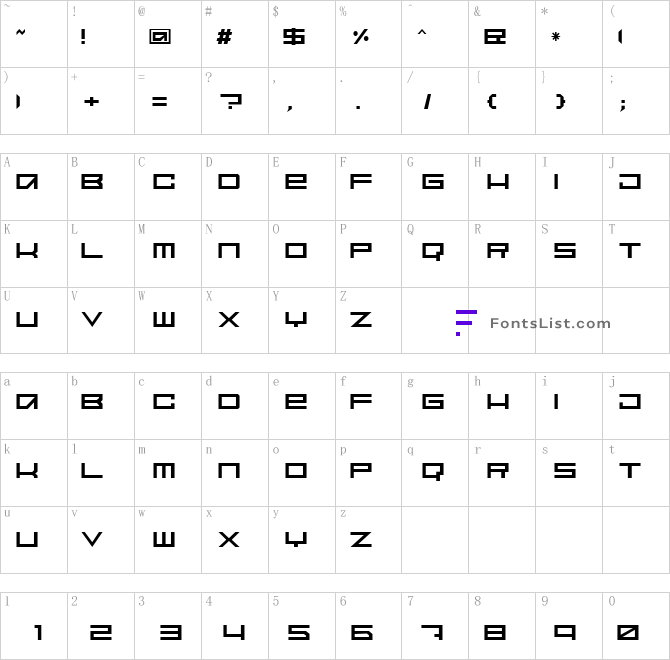
- Font Name:AmmoMonkey[tt]
AmmoMonkeytt-.ttf is a very beautiful artistic font, AmmoMonkeytt-.ttf is widely used in the design and printing of various books and pictures,AmmoMonkeytt-.ttf has a strong visual impact,AmmoMonkeytt-.ttf is a commonly used font in newspapers, magazines and books, and is used in posters, e-commerce Poster design, store design, logo design, font design and other fields.AmmoMonkeytt-.